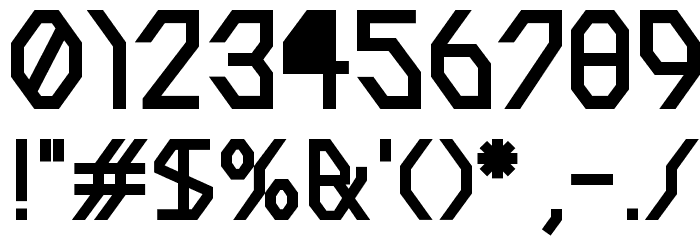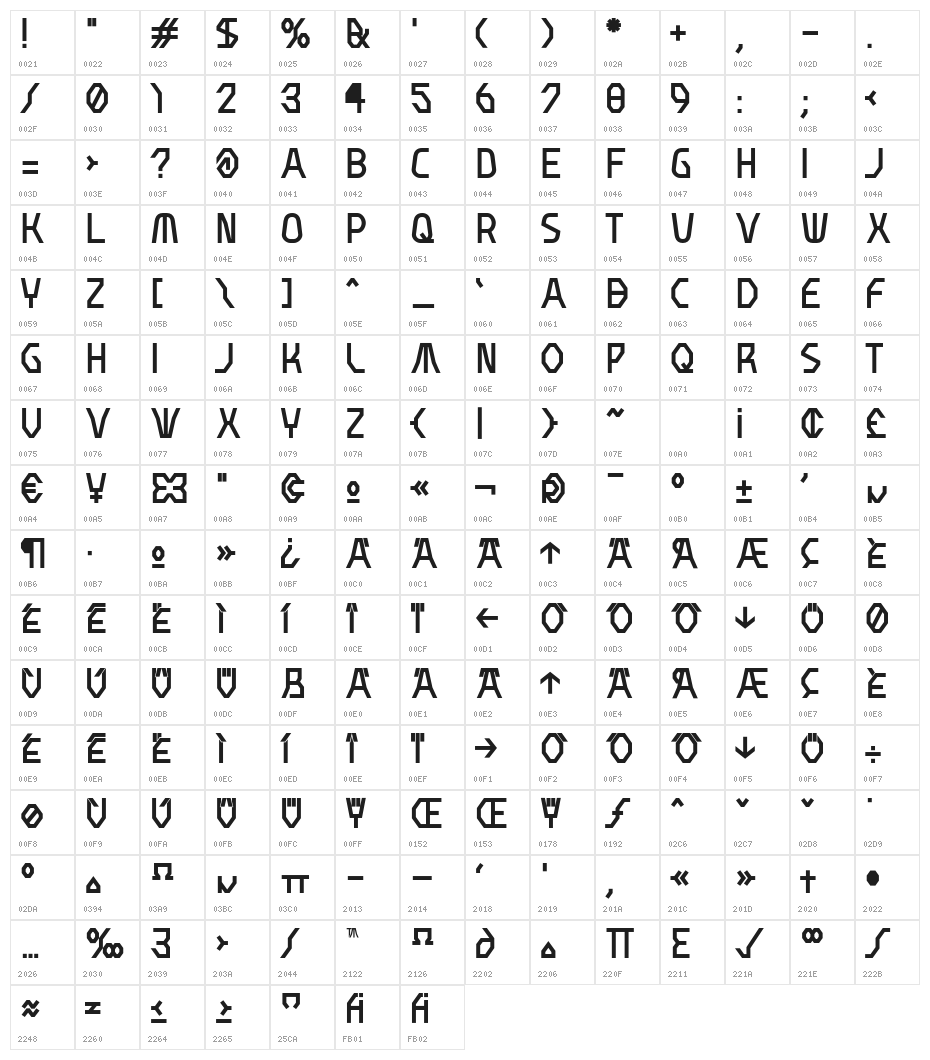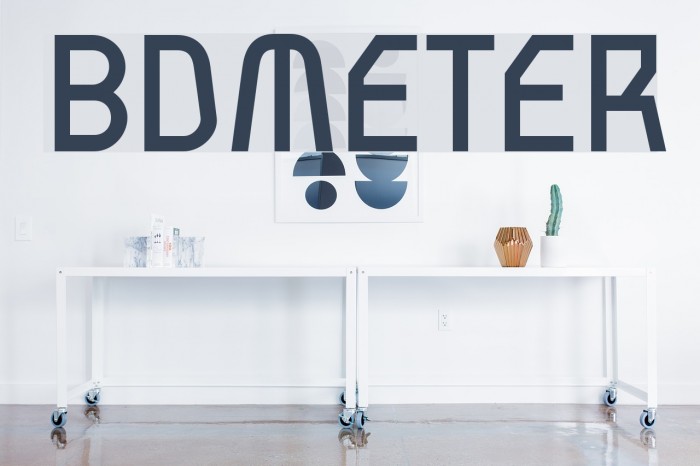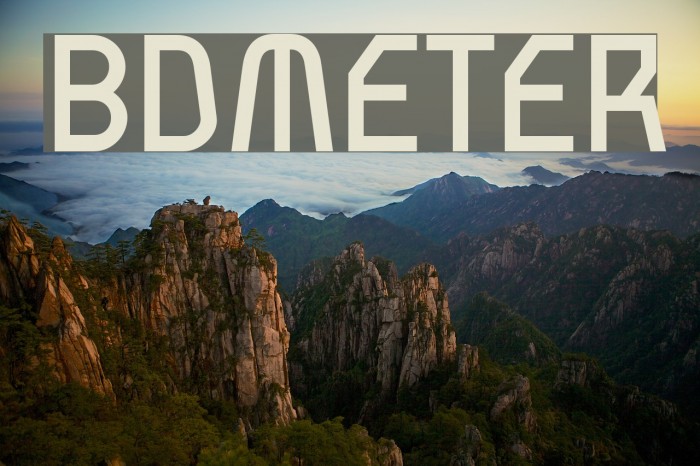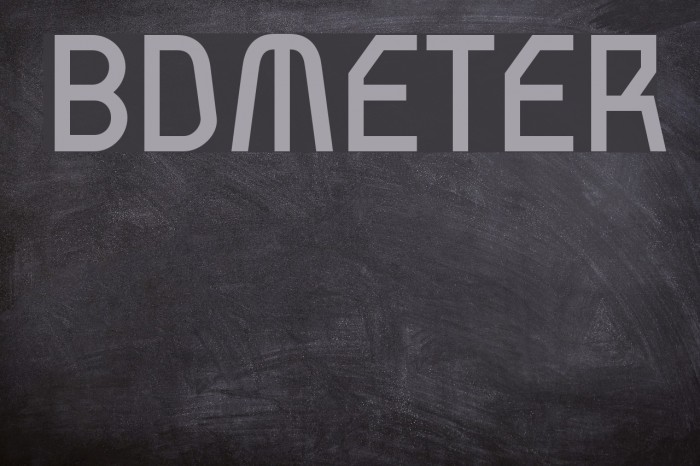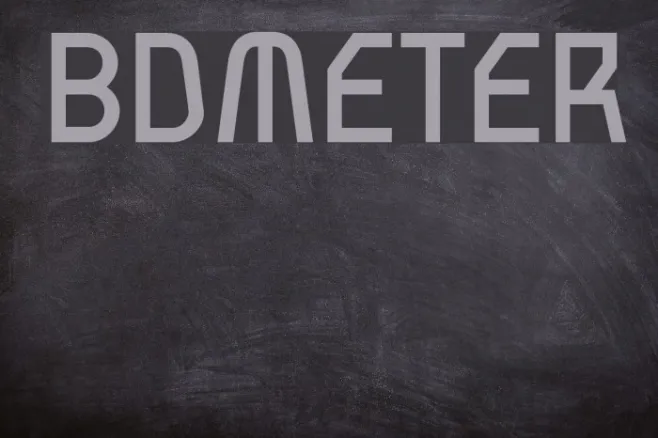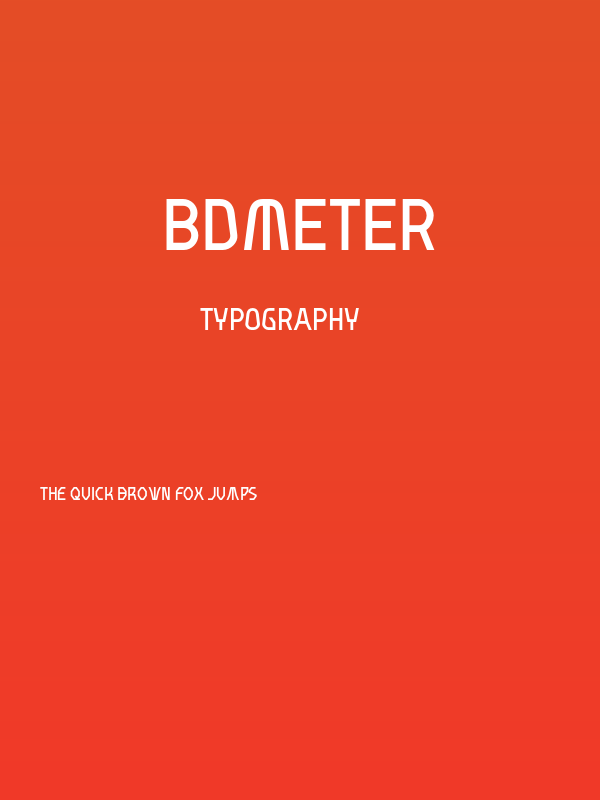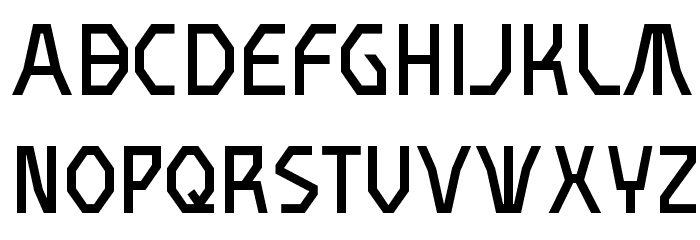
BDMeter Font
BDMeter Description
This font features a bold, geometric design with angular and sharp edges, creating a futuristic and industrial feel. The characters are constructed with straight lines and sharp angles, giving them a mechanical and structured appearance. The uppercase and lowercase letters maintain a consistent style, with a uniform height and width that enhances readability. The numbers and special characters follow the same design principles, ensuring a cohesive look across all glyphs. The font's unique style makes it stand out, suitable for projects that require a modern and edgy aesthetic.